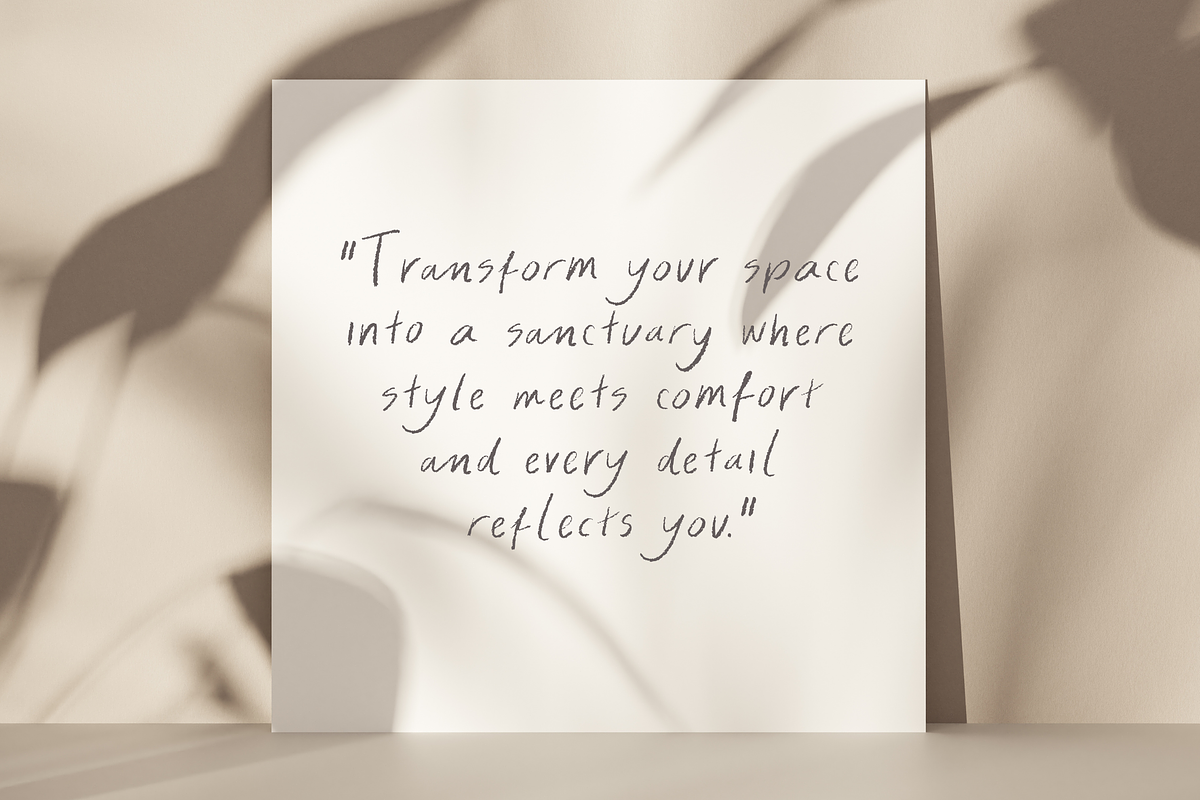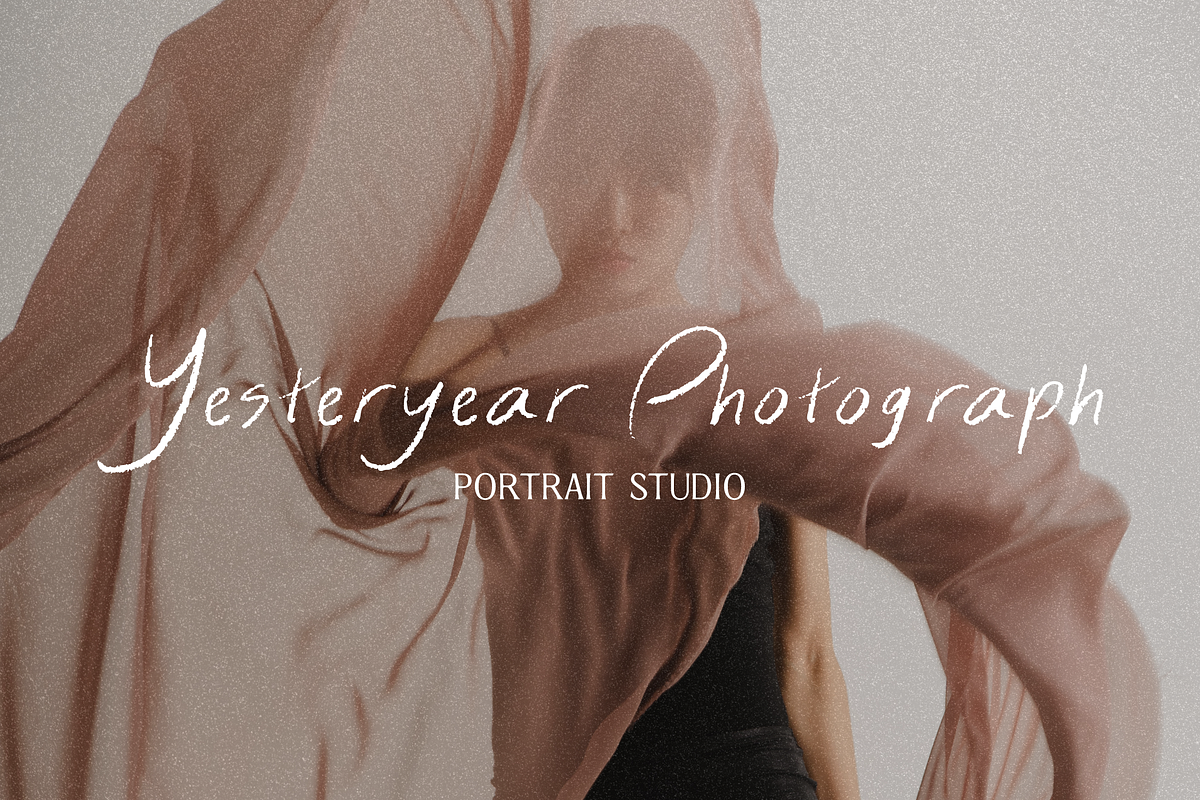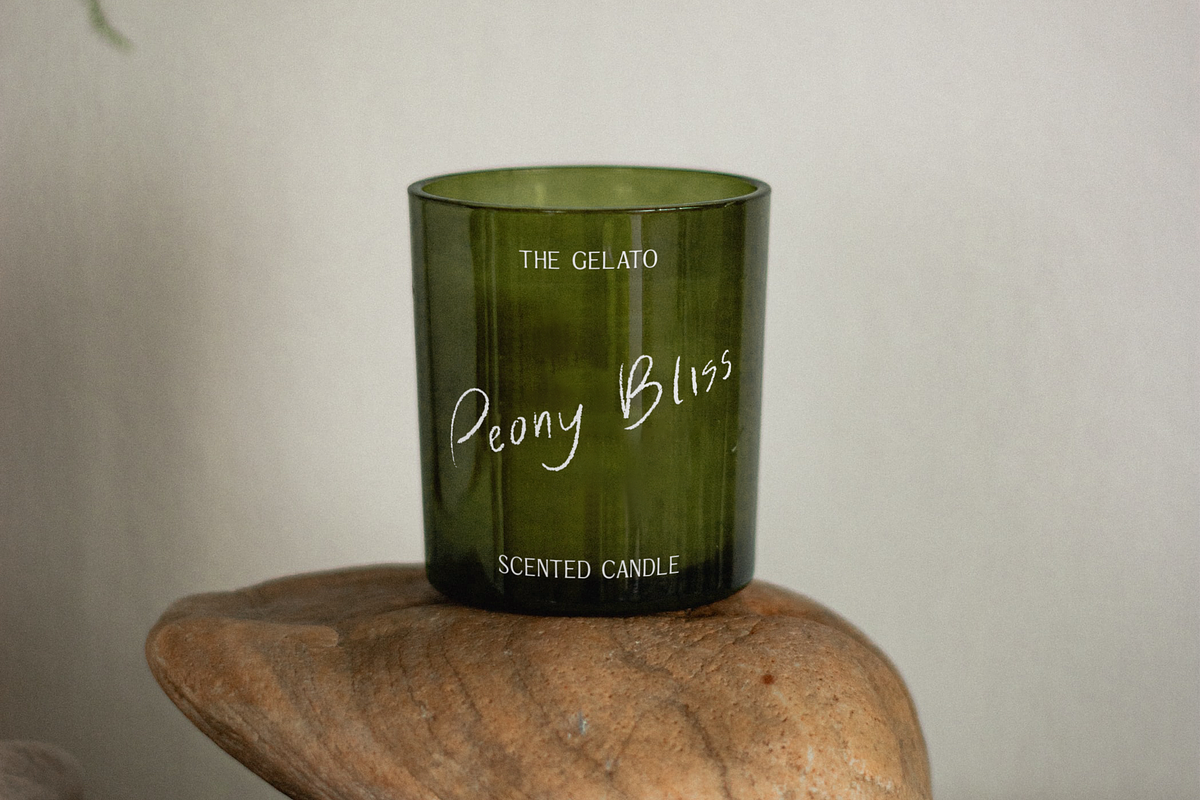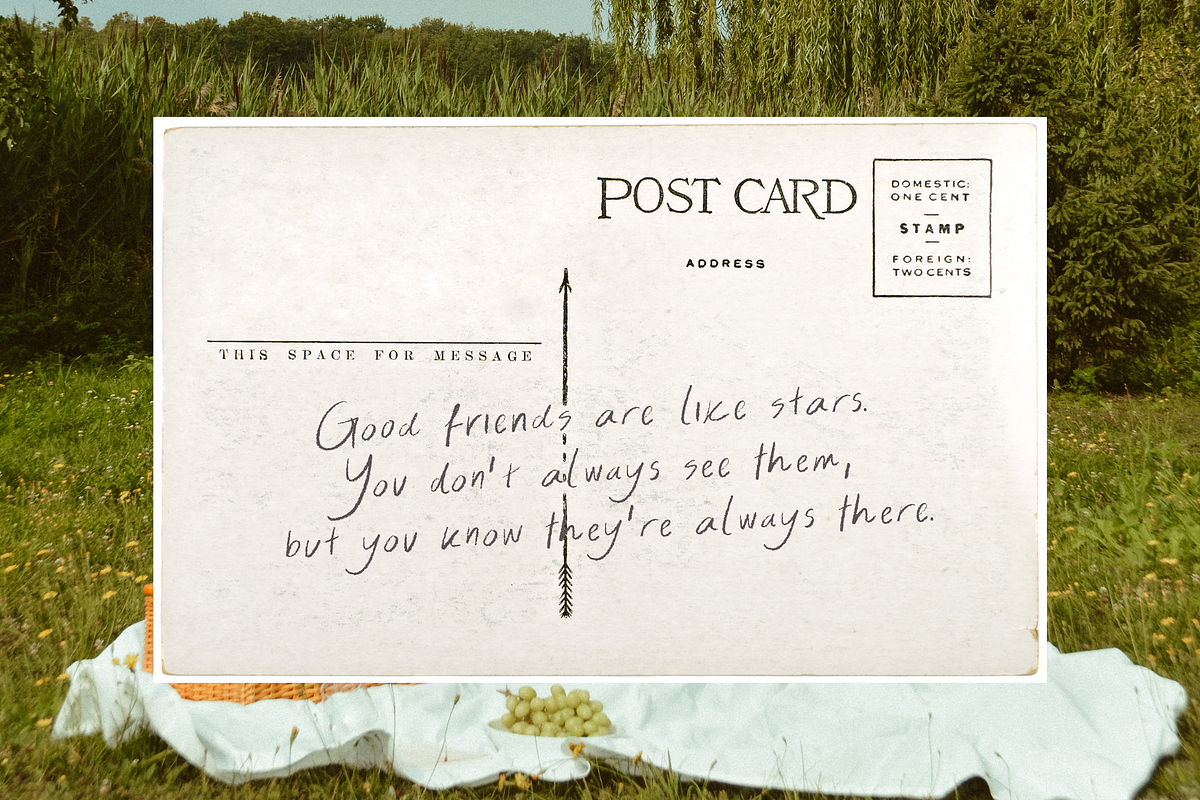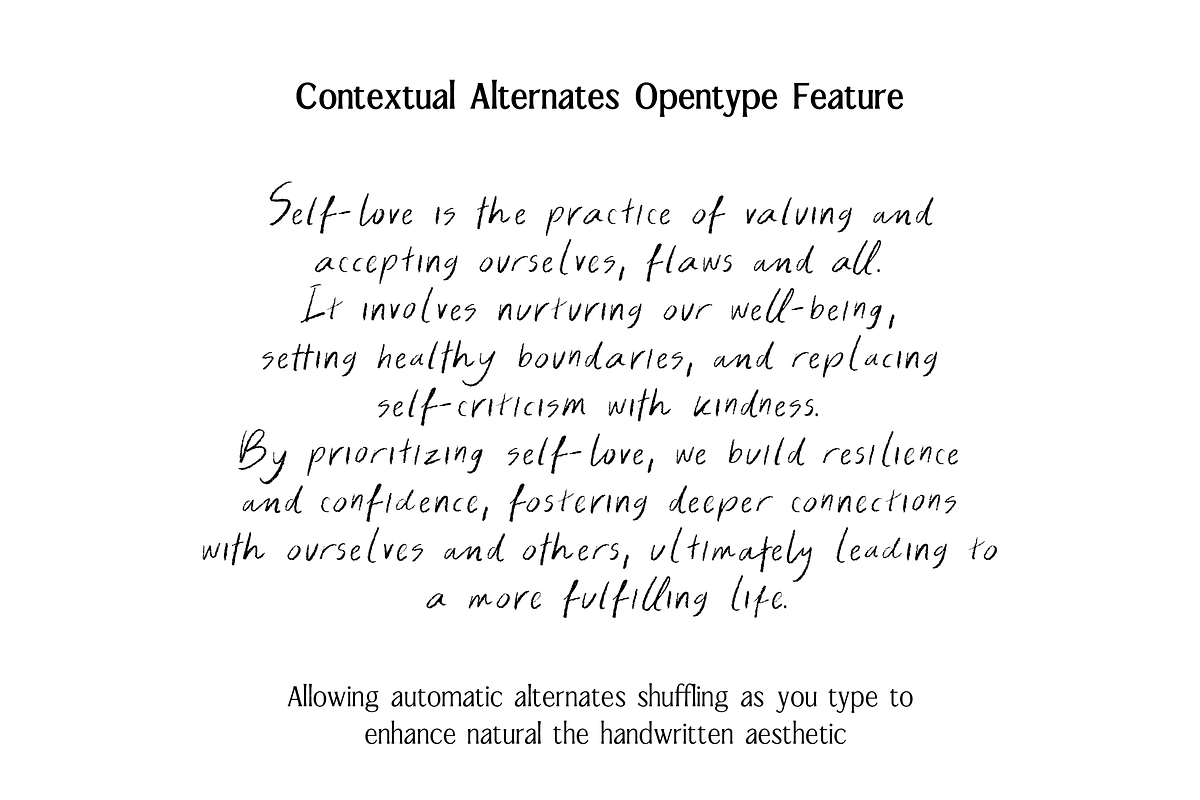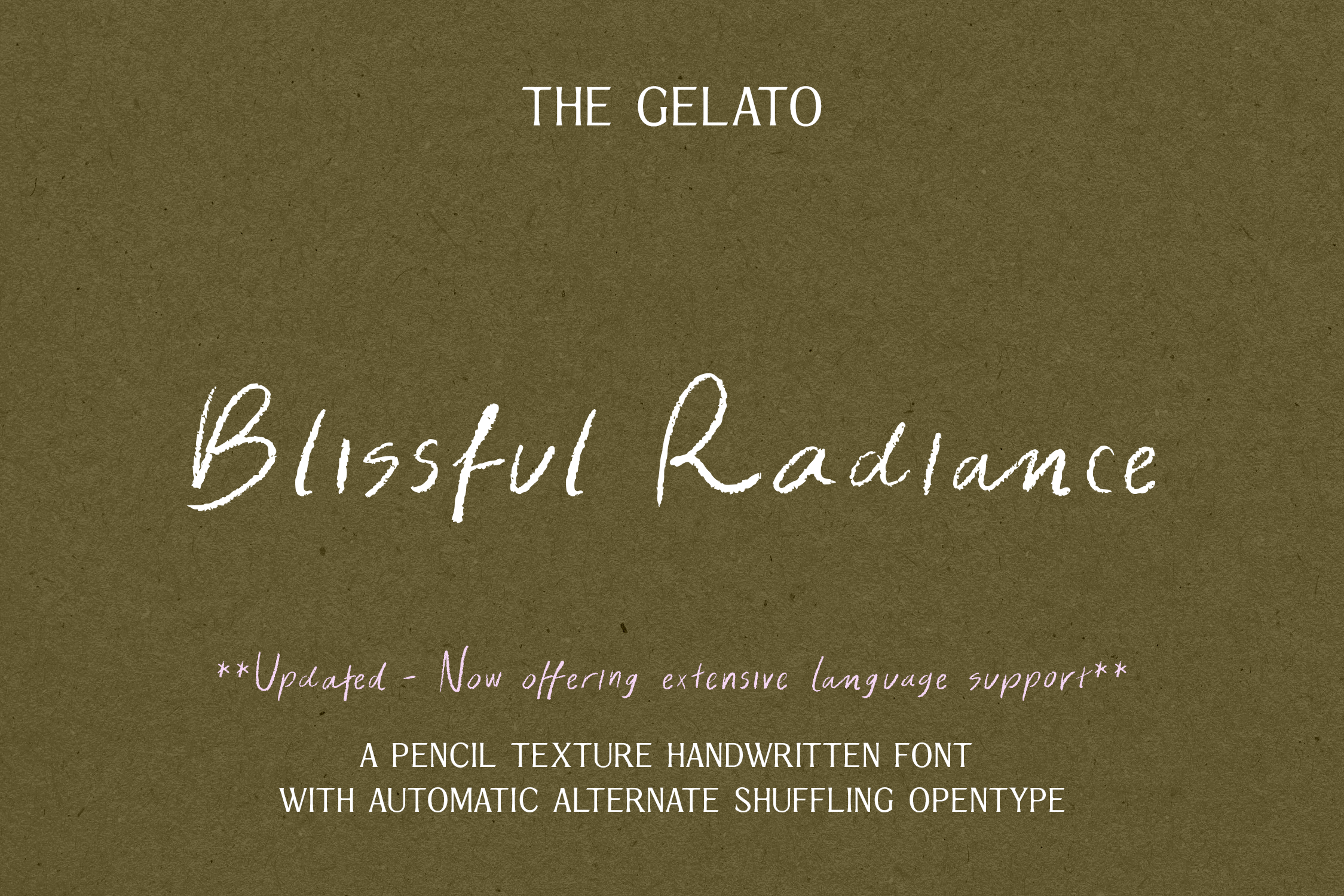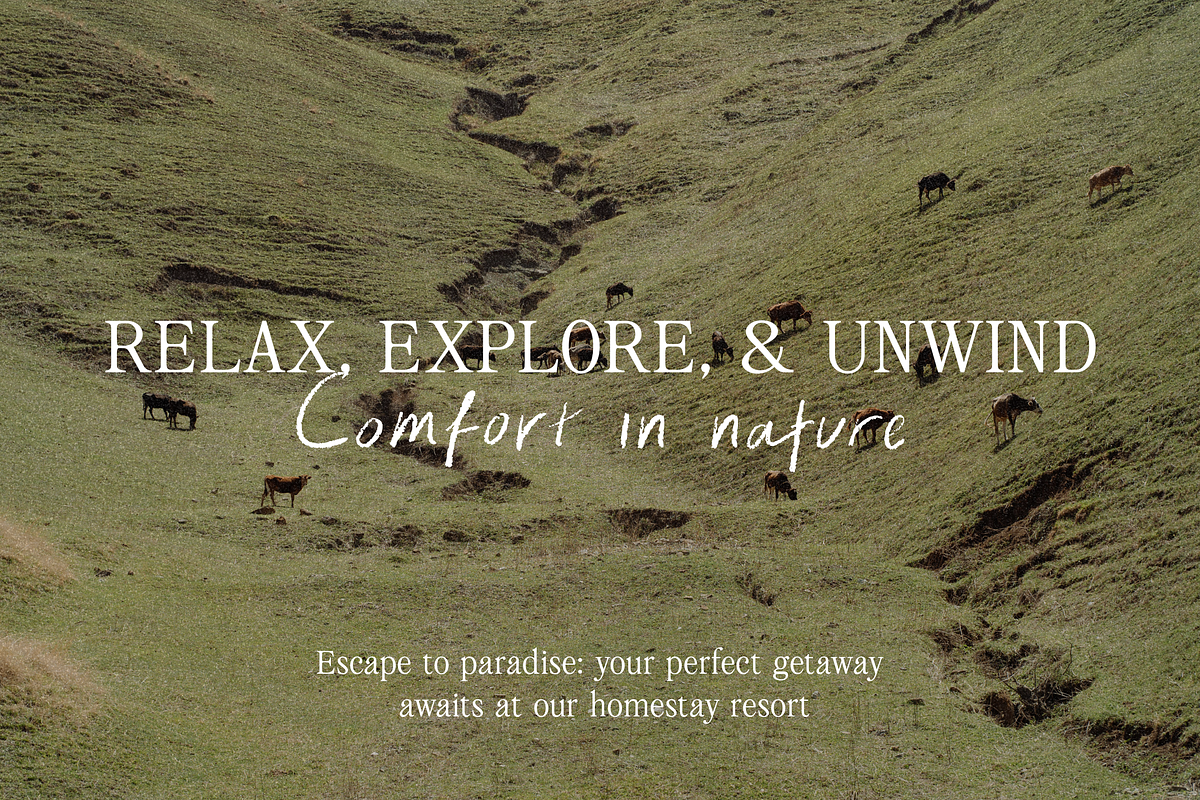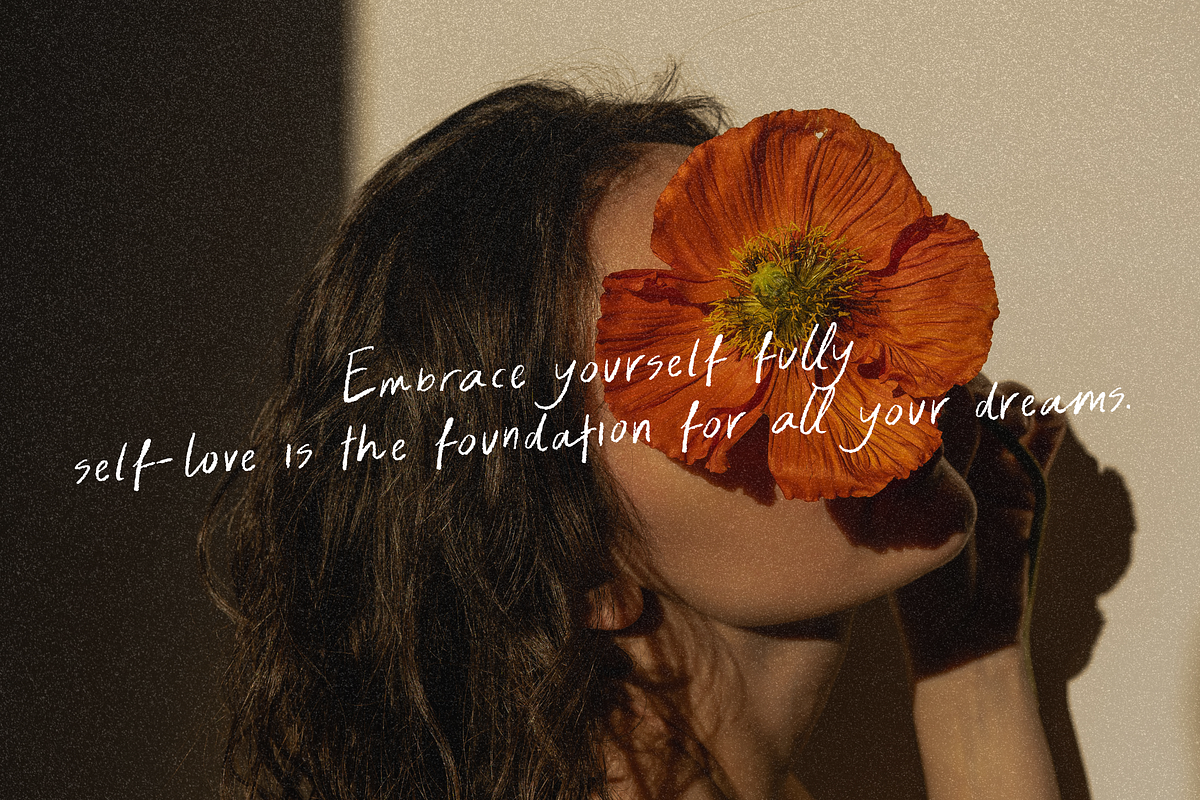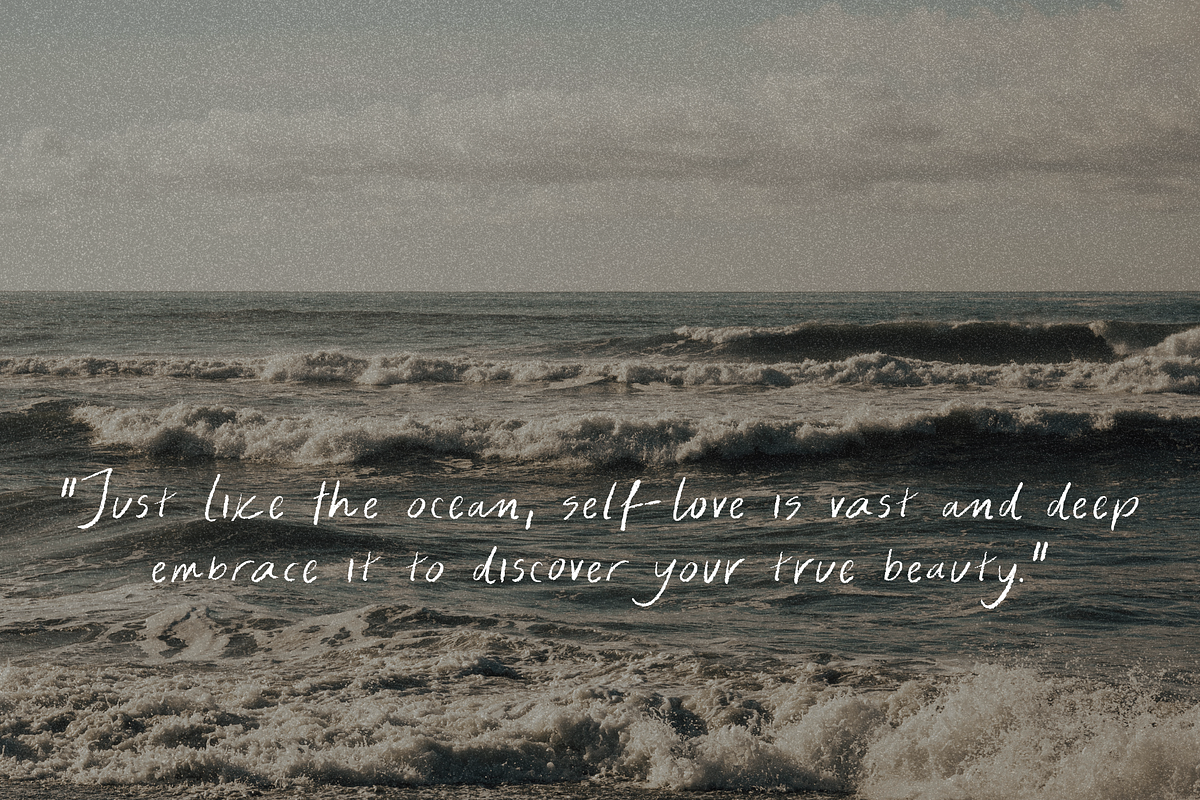
Blissful Radiance Handwritten Font
Introducing Blissful Radiance—a charming pencil texture handwritten font that captures the essence of warm, personal expression. Perfect for everything from heartfelt notes to stylish branding, this font radiates creativity and authenticity.
Unique Pencil Texture: Each letter boasts a delightful, hand-drawn feel, reminiscent of genuine pencil strokes, adding an organic touch to your designs.
Contextual Alternates: Our advanced OpenType feature includes 2 sets of alternates, allowing for automatic alternate shuffling as you type. Create a lively and dynamic look while eliminating monotonous repetition for a beautifully varied handwritten aesthetic!
Multilingual Support: With extensive character sets, Blissful Radiance ensures your messages can reach audiences across the globe, seamlessly accommodating various languages.
Now covering more extensive Latin-based languages: Western, Central, South Eastern European languages, South American languages, Oceanian languages, and Esperanto language
Whether you're designing invitations, crafting social media graphics, or creating branding elements, Blissful Radiance is your go-to font for a touch of warmth and whimsy. Elevate your projects with the effortless elegance of this stunning handwritten typeface!